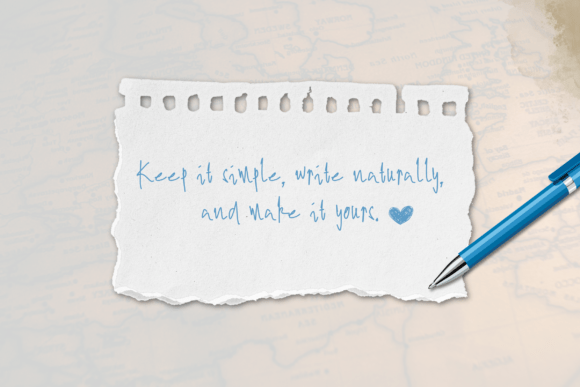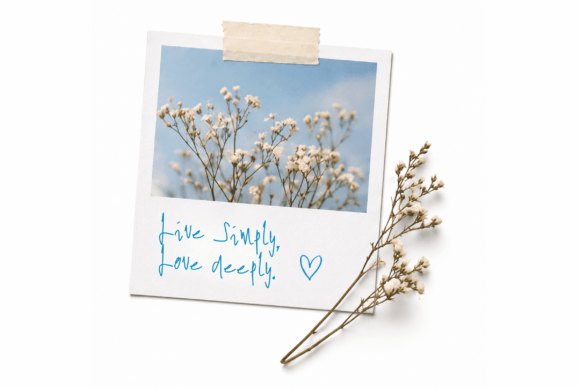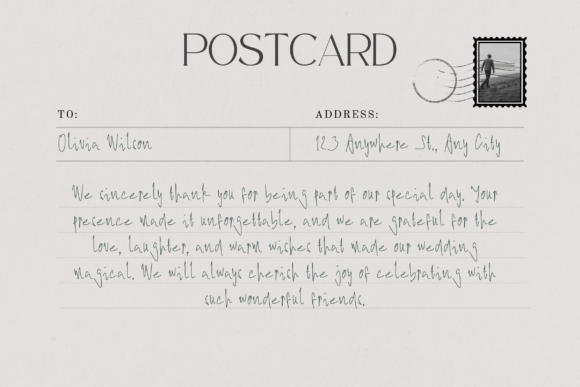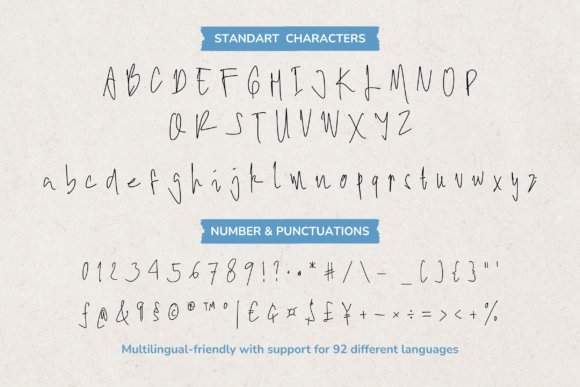
Introduction to Simple Scribble Font
Add a natural, effortless touch to your designs with Simple Scribble, a charming handwritten font that captures the beauty of imperfect lines and authentic pen strokes.
Designed to feel casual yet expressive, this font is perfect for creating a friendly and personal vibe Simple Scribble includes complete uppercase and lowercase letters, numbers, and a wide range of punctuation, making it versatile for various creative needs.